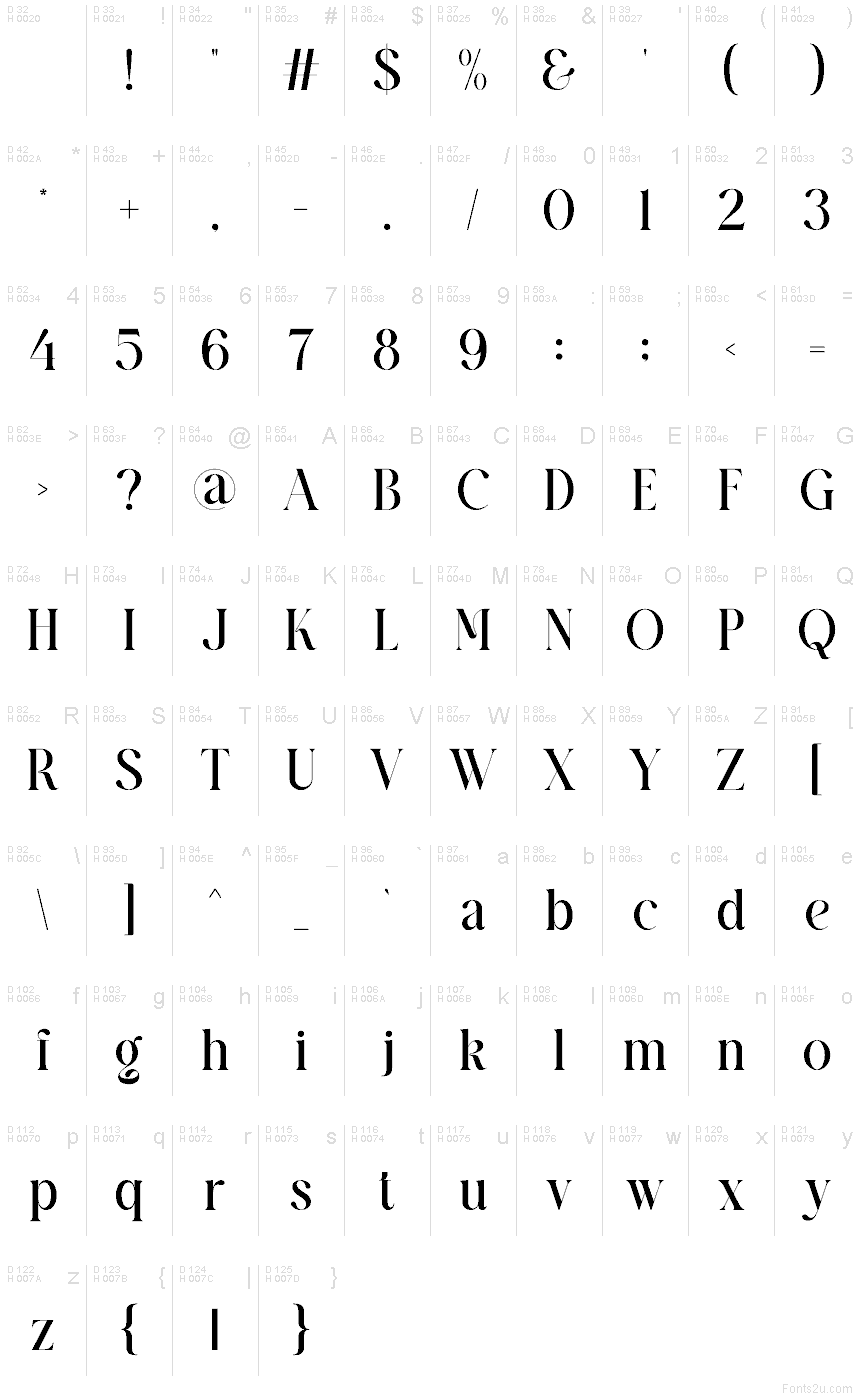
Qwenty
Qwenty font by Ermedia Studio is a free serif display font. Sculpted strokes swing from hairline thins to inky, weighty curves, while crisp wedge serifs and a sweeping tail lend a couture, editorial sheen. The rhythm feels poised but lively—luxury without stiffness—so headlines catch light like glossy ink on coated paper.
Using Qwenty, your brand marks, fashion editorials, perfume packaging, restaurant menus, event invitations, and hero banners gain instant sophistication. This free font shines when set large with a touch of extra letterspacing for air. For body copy or captions, pair it with a clean, unobtrusive grotesk to keep the spotlight on Qwenty’s dramatic contrast and elegant flow.